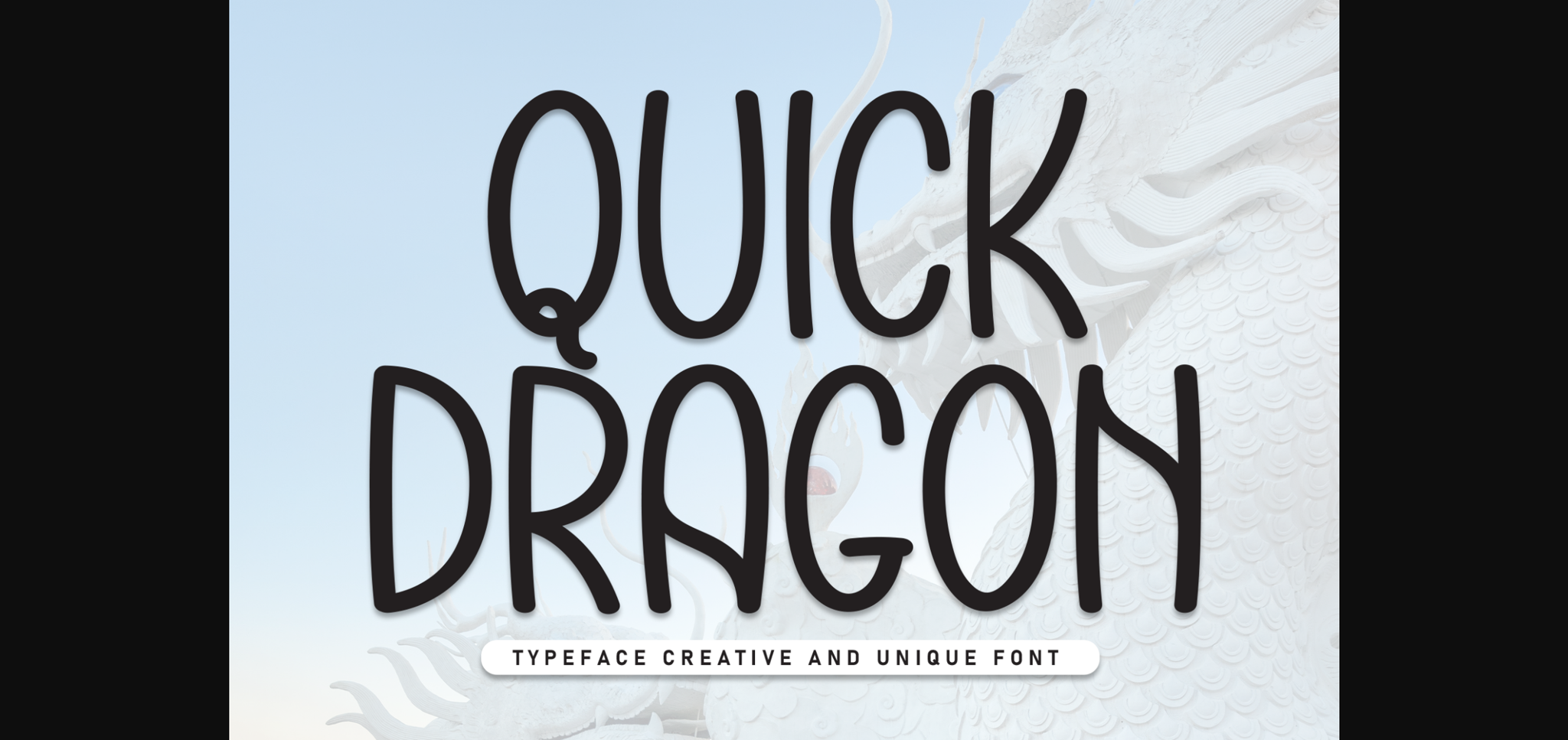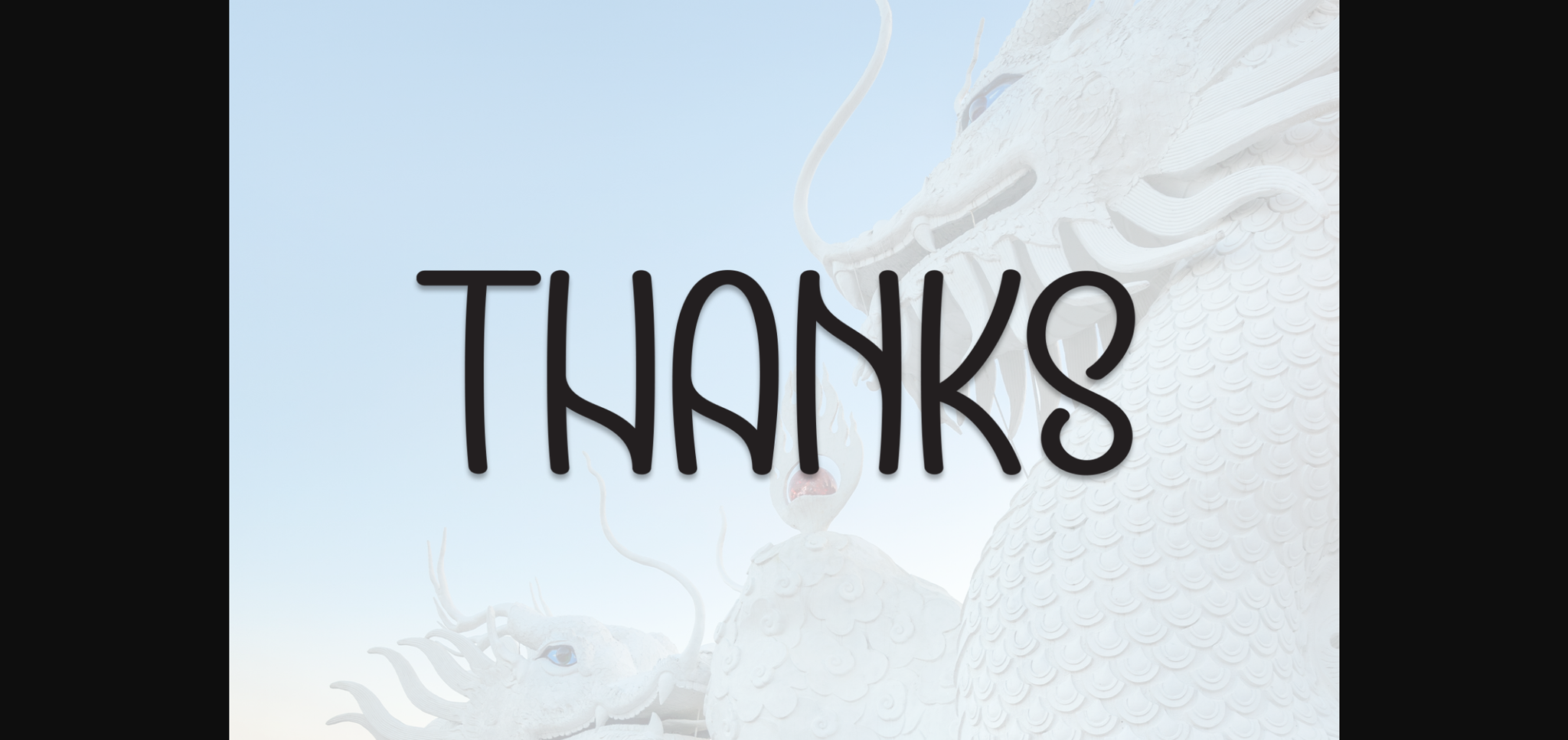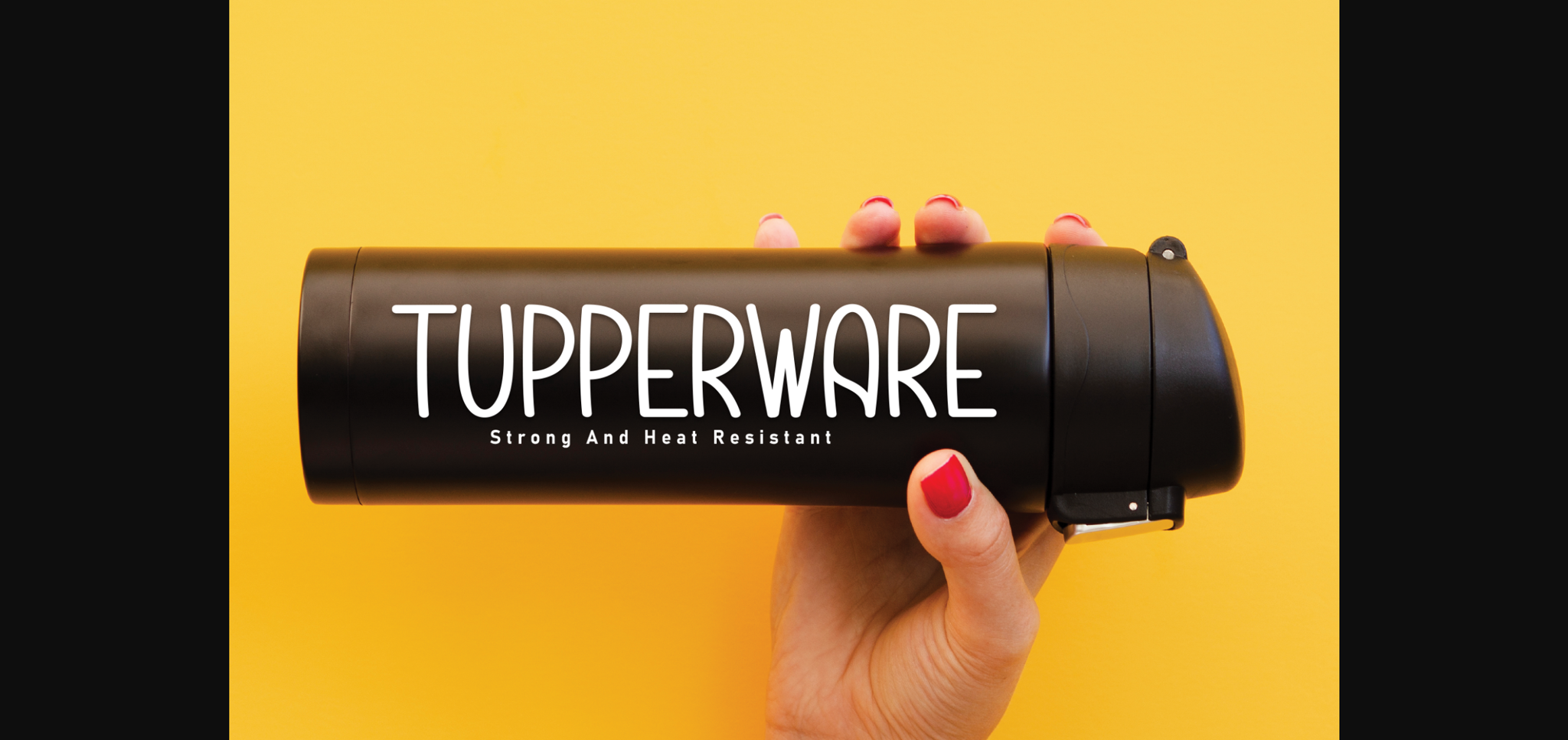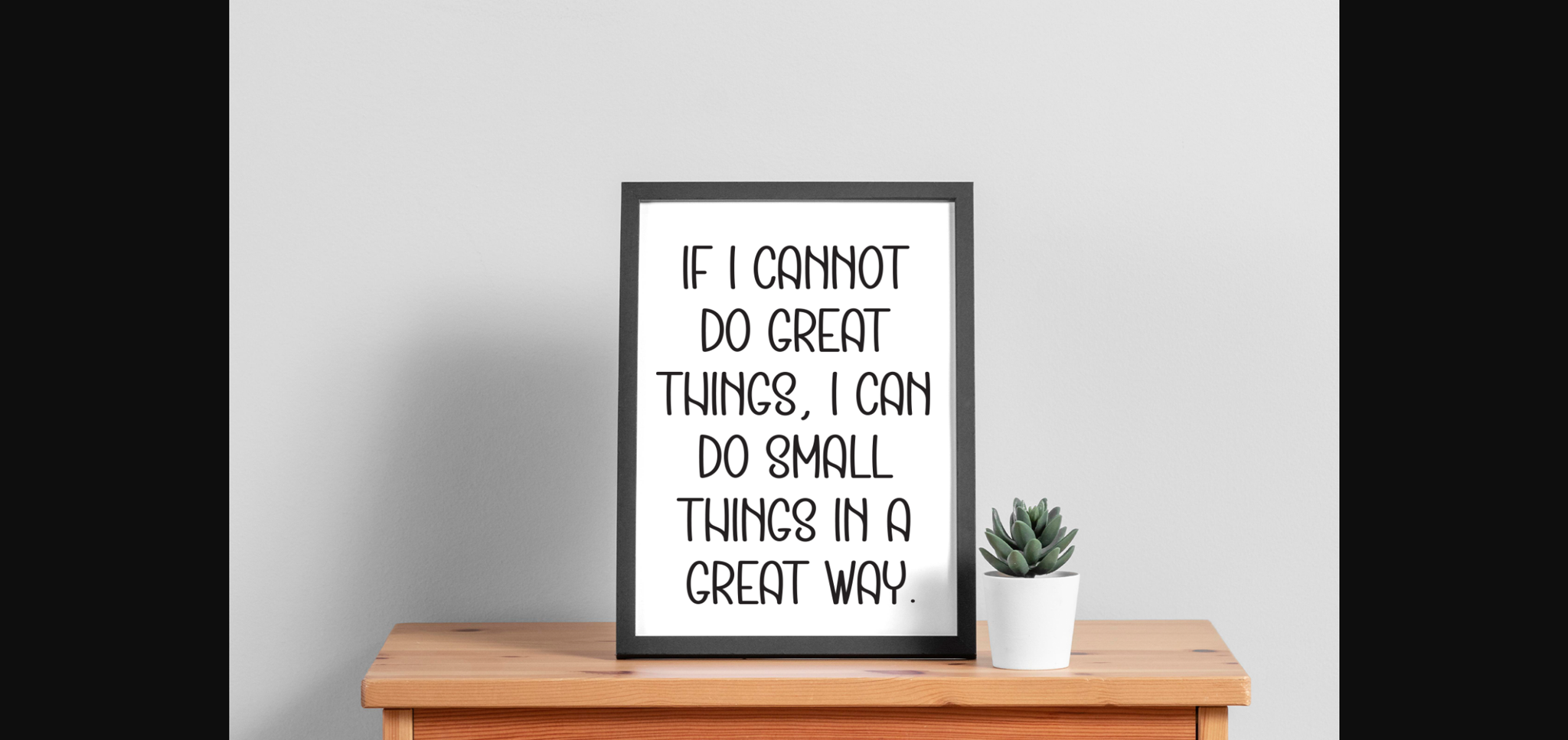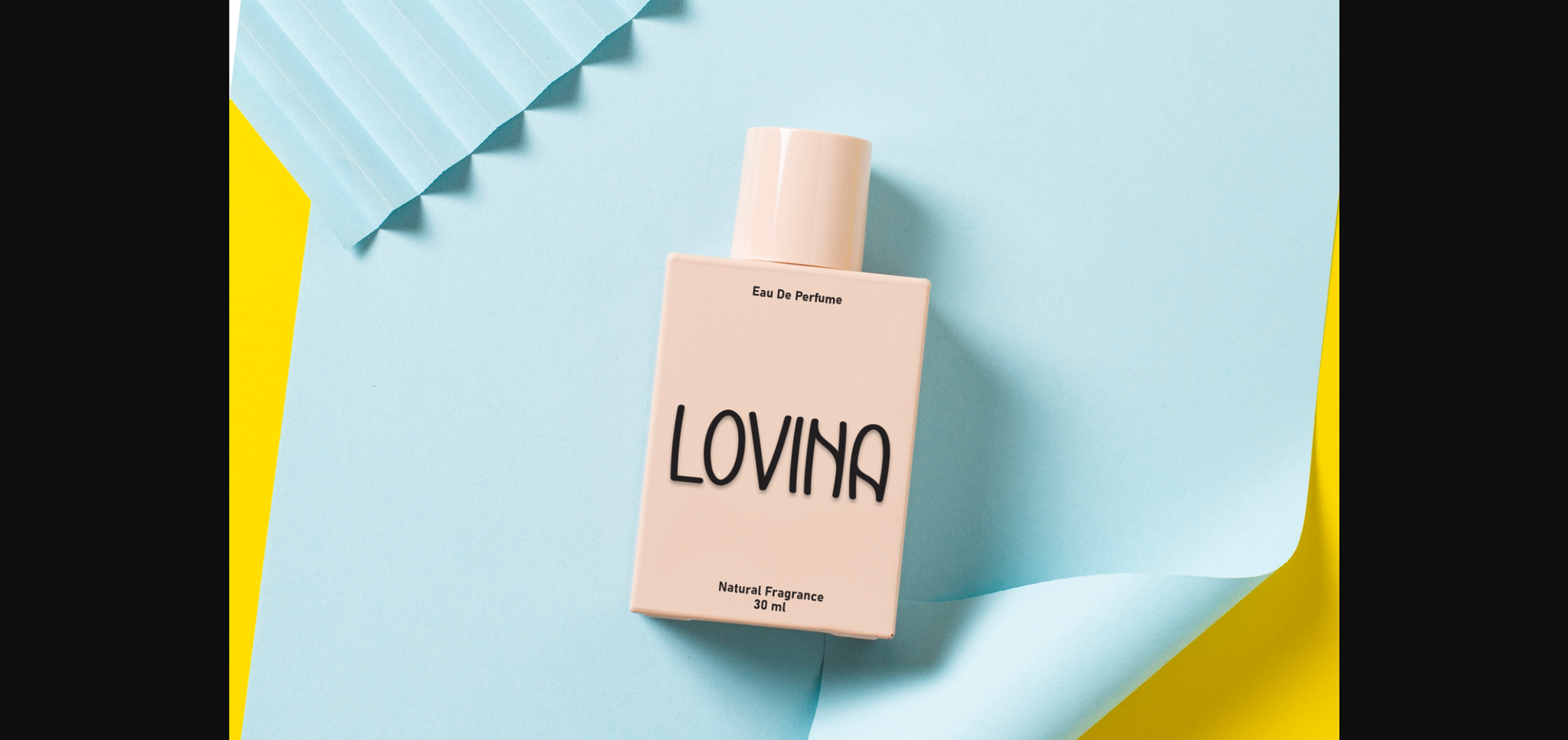
About Quick Dragon Font
Quick Dragon is a charming sans-serif font that captures the essence of casual elegance. With its flowing strokes and natural feel, it brings a sense of warmth and personality to any project. Perfect for adding a touch of sophistication to invitations, branding, and creative designs.